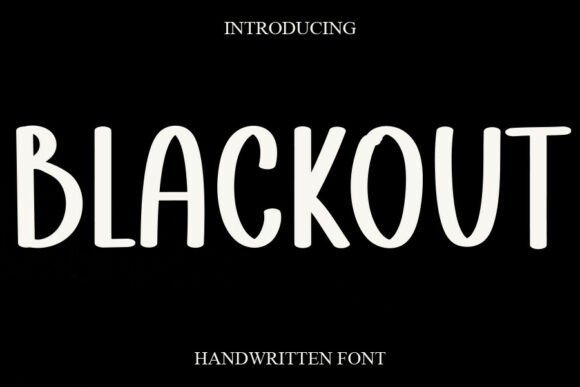
Unleashing the Heartfelt Charm of Handwritten Design
As designers, we’ve all been there – stuck in a creative rut, searching for the perfect font to bring our vision to life. Maybe you’re working on a heartfelt Father’s Day design, or perhaps you’re crafting a personalized card for a loved one. Whatever the project, the right font can make all the difference.
That’s where the Blackout Font comes in – a tall, playful handwritten font that exudes warmth and personality. Its slim, elongated characters are perfect for adding a touch of charm to your designs, making it an ideal choice for personal and emotional projects. With the Blackout Font, designers can create authentic, heartfelt pieces that speak directly to the heart.
Blackout Font Key Features
- Font Family: Blackout Font is a sans-serif font family designed for digital use.
- Unique Characteristics: Blackout Font features a bold, modern design with a unique blend of geometric and rounded shapes, making it ideal for digital interfaces and branding.
Review of Blackout Font
Overall, I think Blackout Font has some great qualities, but it also falls short in a few areas.
- The bold, sans-serif design makes it a great choice for headlines and titles.
- The font is highly legible, even at small sizes, making it a great option for body text.
- It’s highly customizable, allowing for a wide range of font sizes, colors, and styles.
- The font can come across as a bit too bold and overbearing, especially for smaller body text.
- It may not be the best choice for long blocks of text, as it can start to feel overwhelming.
- It’s not particularly suitable for use in situations where subtlety is key.
While Blackout Font has its strengths, I think it’s best used in situations where a bold, attention-grabbing font is needed. It’s not a good all-around choice, but it can be a great tool in the right context.
The Blackout Font is commonly used for creating bold, eye-catching headlines and titles. It’s also great for creating a sense of drama or emphasis in your design. To get the most out of the Blackout Font, try using it in combination with bold colors and high-contrast backgrounds.
Alternatives to Blackout Font for Designers